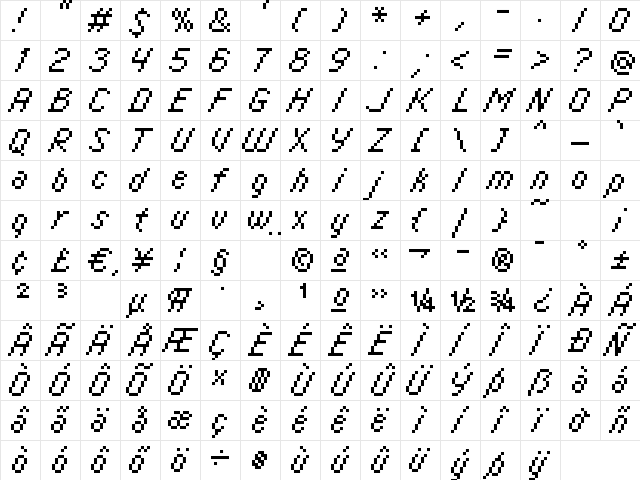
italic 08_56 Regular
| Foundry | Adobe Systems Incorporated |
| Designer | Craig Kroeger |
Design Context for italic 08_56 Typeface
italic 08_56 offers clean, dependable letterforms without strong stylistic allegiance, making it a practical choice for designers who need flexibility. Its italic angle brings a sense of urgency and motion to the letterforms.
Pro Tip: Use italic 08_56 for emphasis, pull quotes, and subheadings where its slanted energy can add rhythm to the layout.